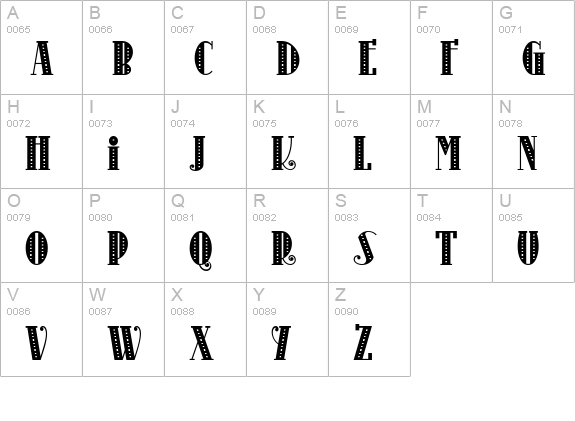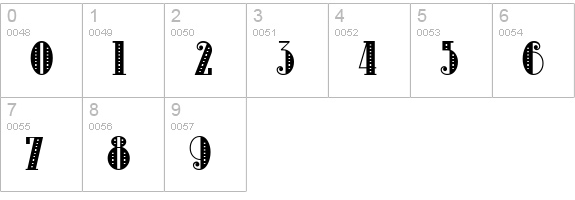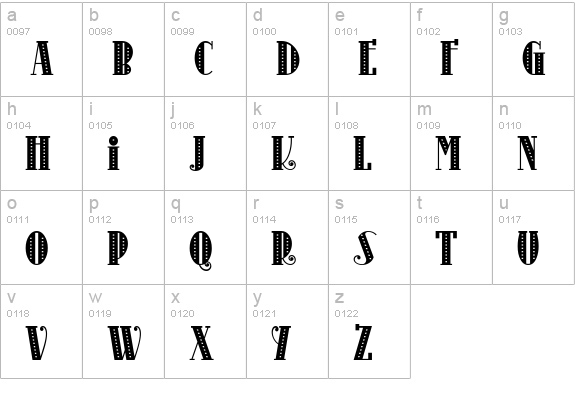
Kinkajou Stew NF Font Details
Introducing Kinkajou Stew NF, a whimsical and quirky font that adds a touch of playfulness to any design project. With its unique combination of hand-drawn elements and a modern twist, this font is bound to captivate and delight both designers and readers alike. Kinkajou Stew NF is not just your ordinary font; it is a free font that can be freely downloaded at FontsMarket.com. This means that you can enjoy the charm and versatility of Kinkajou Stew NF without breaking the bank. Whether you are a professional designer looking to add a touch of creativity to your latest project or an enthusiast who wants to experiment with typography, this font is the perfect choice. The letterforms of Kinkajou Stew NF are meticulously crafted, with every curve and line thoughtfully designed to create a harmonious and visually appealing result. Each character exudes a playful energy, making it an ideal choice for projects that require a lighthearted and joyful touch. From greeting cards and invitations to children's book covers and advertisements, Kinkajou Stew NF will bring a sense of whimsy and charm to your designs. One of the standout features of Kinkajou Stew NF is its versatility. With multiple weights and styles available, this font can adapt to a wide range of design projects. Whether you need a bold and eye-catching headline or a subtle and elegant body text, Kinkajou Stew NF has got you covered. So why wait? Head over to FontsMarket.com and download Kinkajou Stew NF for free today. Unleash your creativity and let this font add a touch of magic to your designs. With its whimsical charm and freely available nature, Kinkajou Stew NF is a must-have for any designer or typography enthusiast.